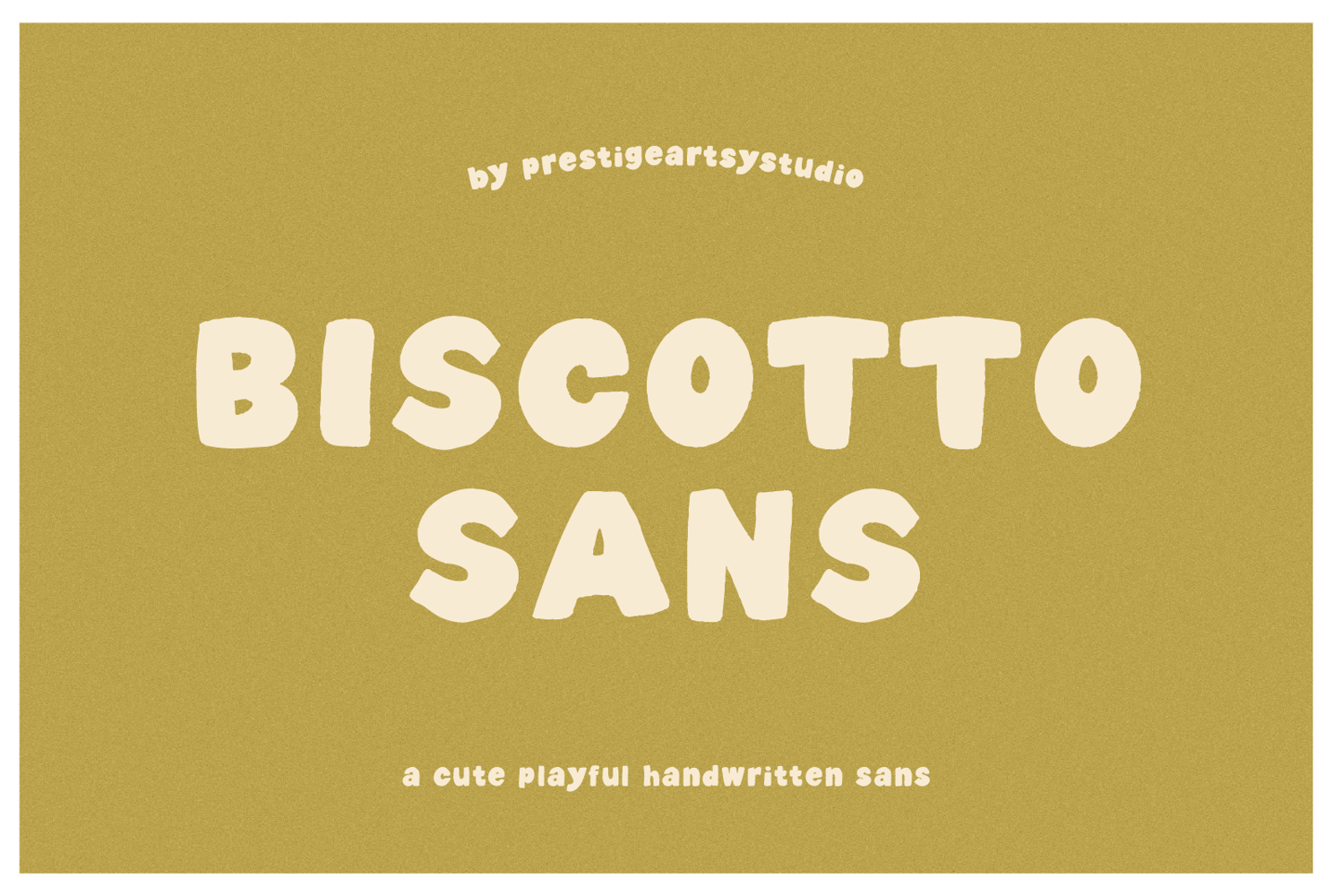
Biscotto A Brush Sans Serif Font
✨ Biscotto Sans ✨
A cute and playful handwritten sans
Biscotto Sans is a bold, crispy handwritten font that’s packed with charm. With its rounded shapes and friendly strokes, it brings a joyful, handmade feel to any design. Perfect for projects that call for warmth, fun, and personality, Biscotto Sans will make your text pop in a unique way.
✔ Crispy, bold handwritten style
✔ Uppercase & lowercase letters
Biscotto Sans is fun, versatile, and super easy to use—perfect for adding a dose of cuteness and bold personality to all your creative projects!